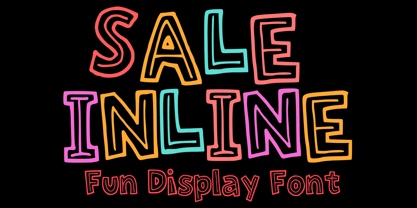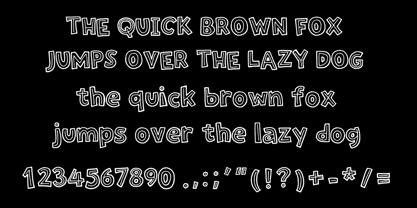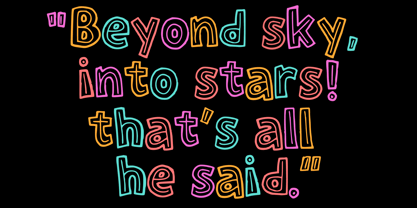
Sale Inline
by Mvmet
The Sale Inline Font Family was designed by Gabriel Valentinus and published by Mvmet. Sale Inline contains 1 styles.
Sale Inline is a fun and playful inline font. You can use it for anything ranging from t-shirts, kids’ book designs, greeting cards, stickers, and posters, or anything that needs a casual touch. Fall in love with its incredibly versatile style and use it to create lovely designs!
Designers: Gabriel Valentinus
Publisher: Mvmet
Foundry: Mvmet
Design Owner: Mvmet
About Mvmet
Mvmet is an Indonesia-based font studio which began making fonts in early 2020. Mvmet strives to make fonts fun and accessible for both the average computer user and professional designers, with original experimental fonts and affordable trend-setting commercial fonts. Mvmet also creates custom fonts for companies who want exclusive rights and a specific design for a typeface. Clients who have used Mvmet’s custom font services include some company in Indonesia and abroad.